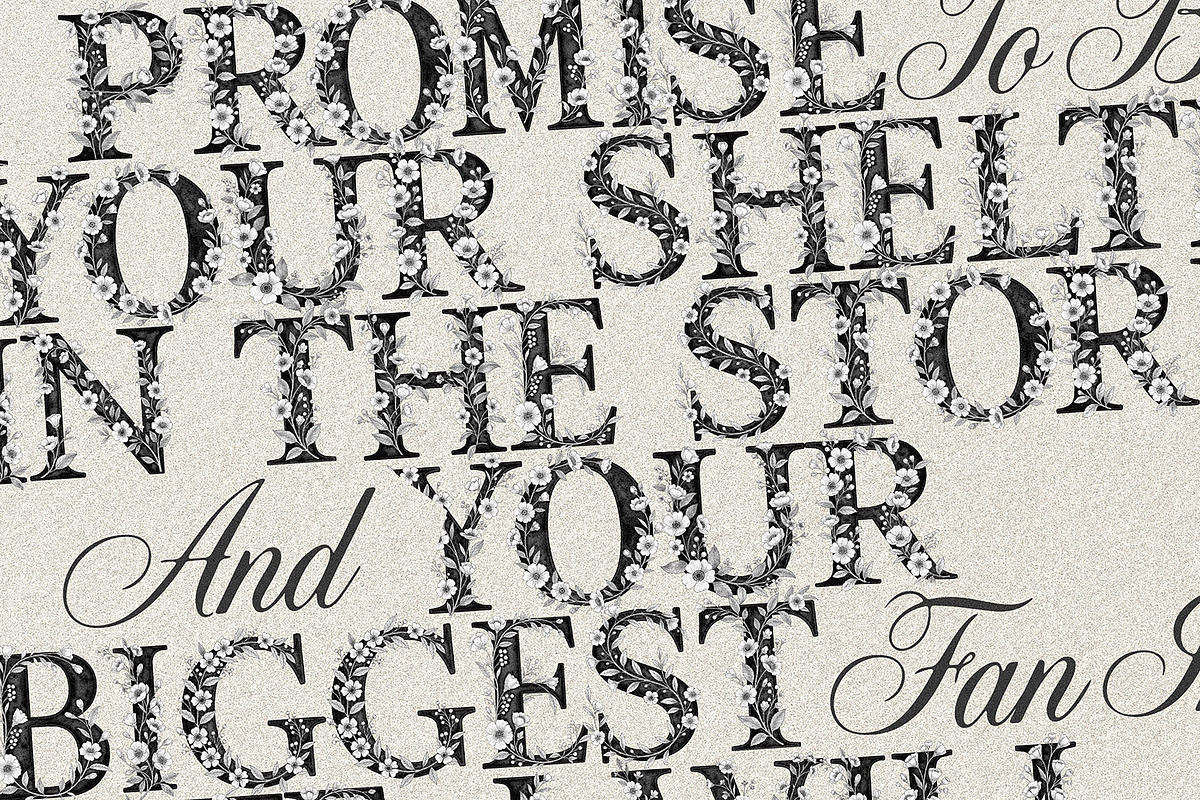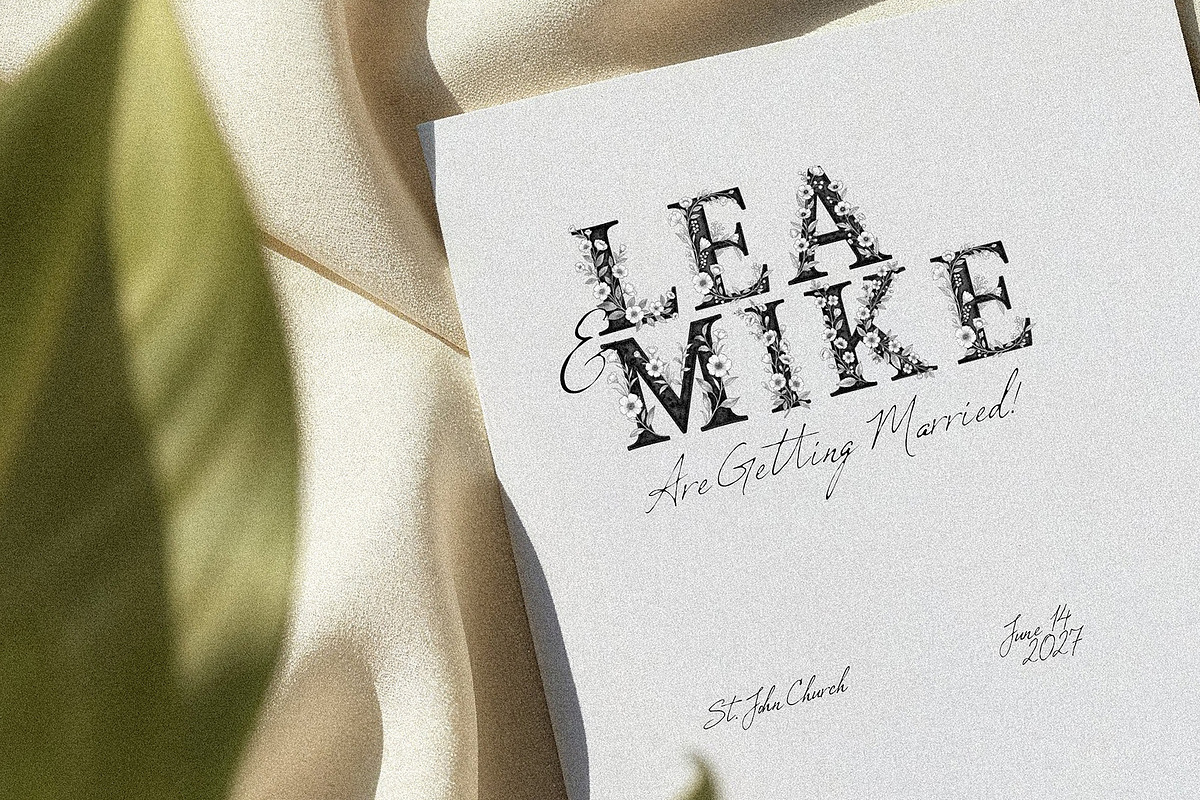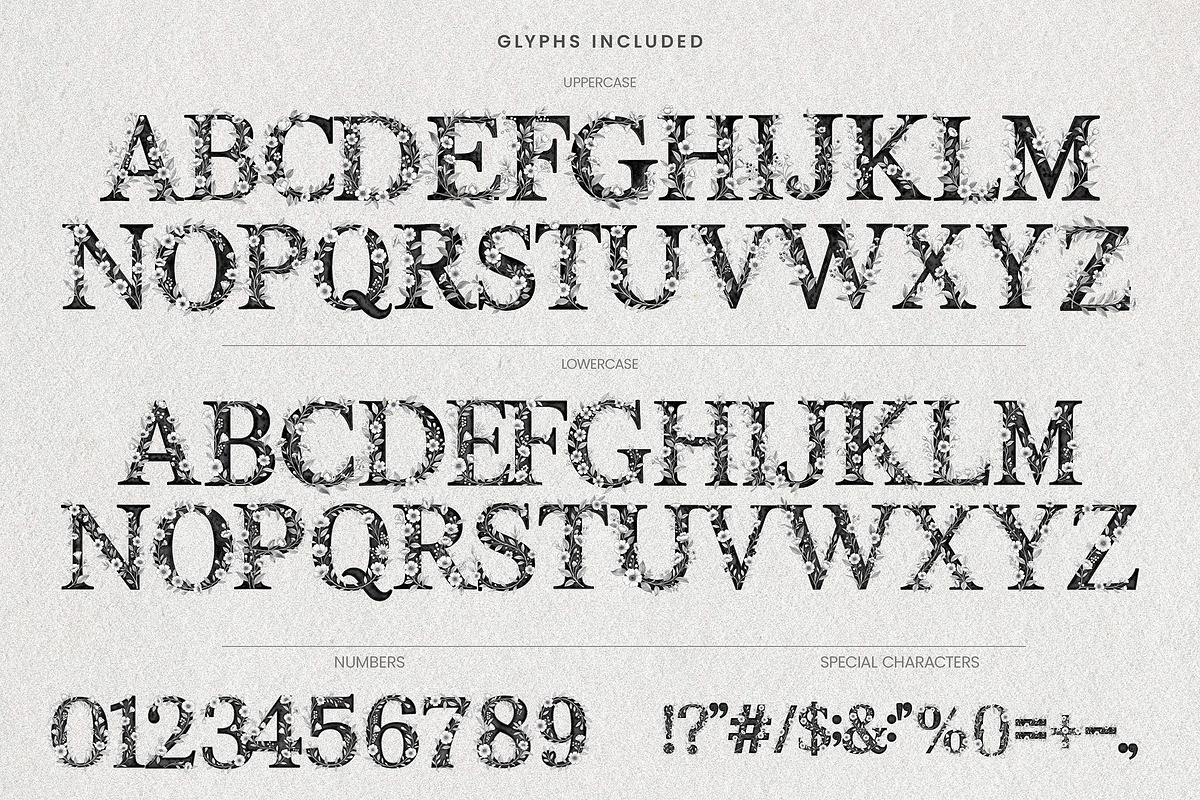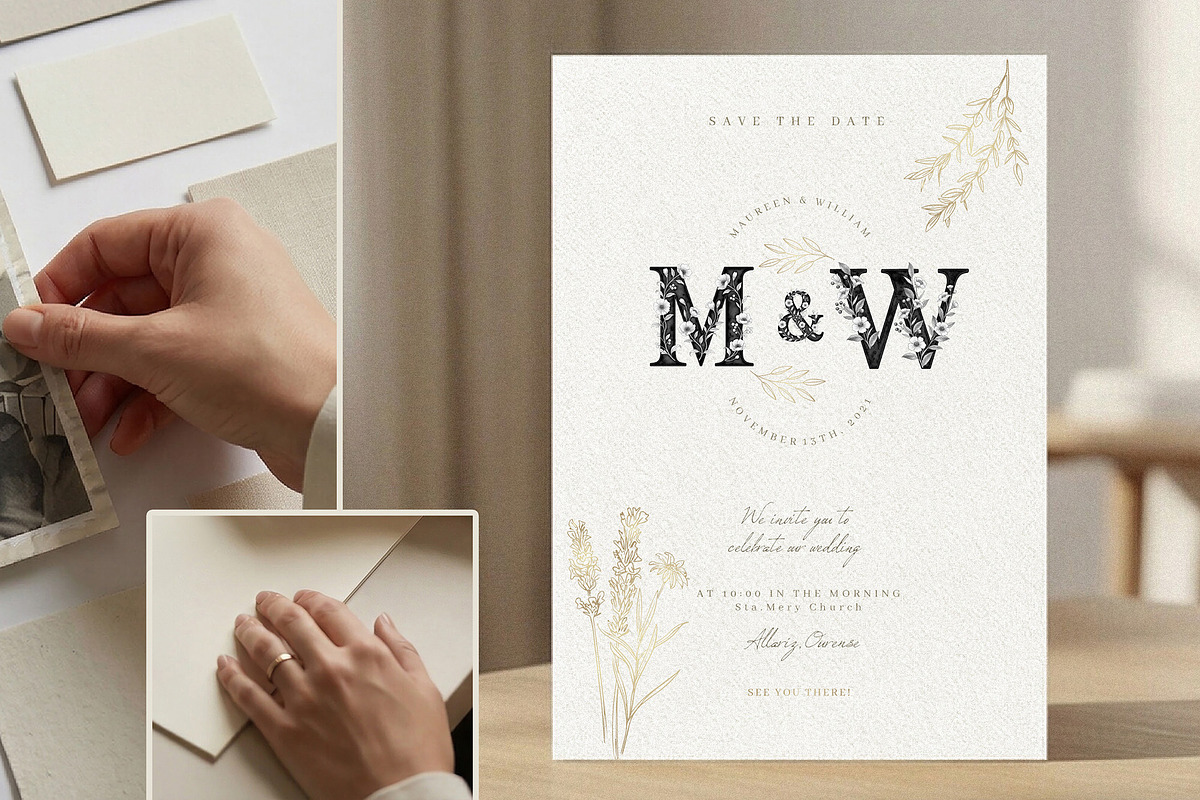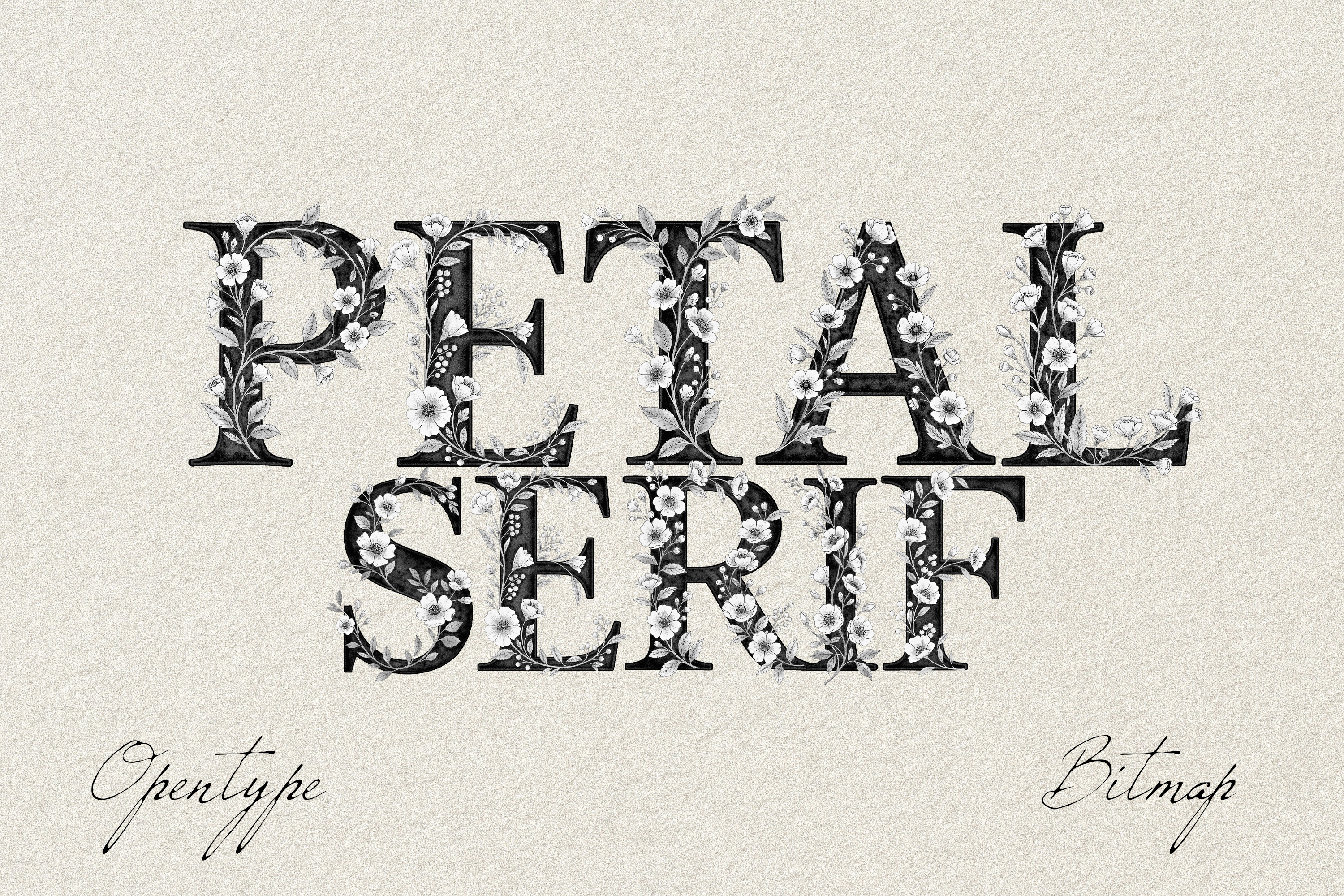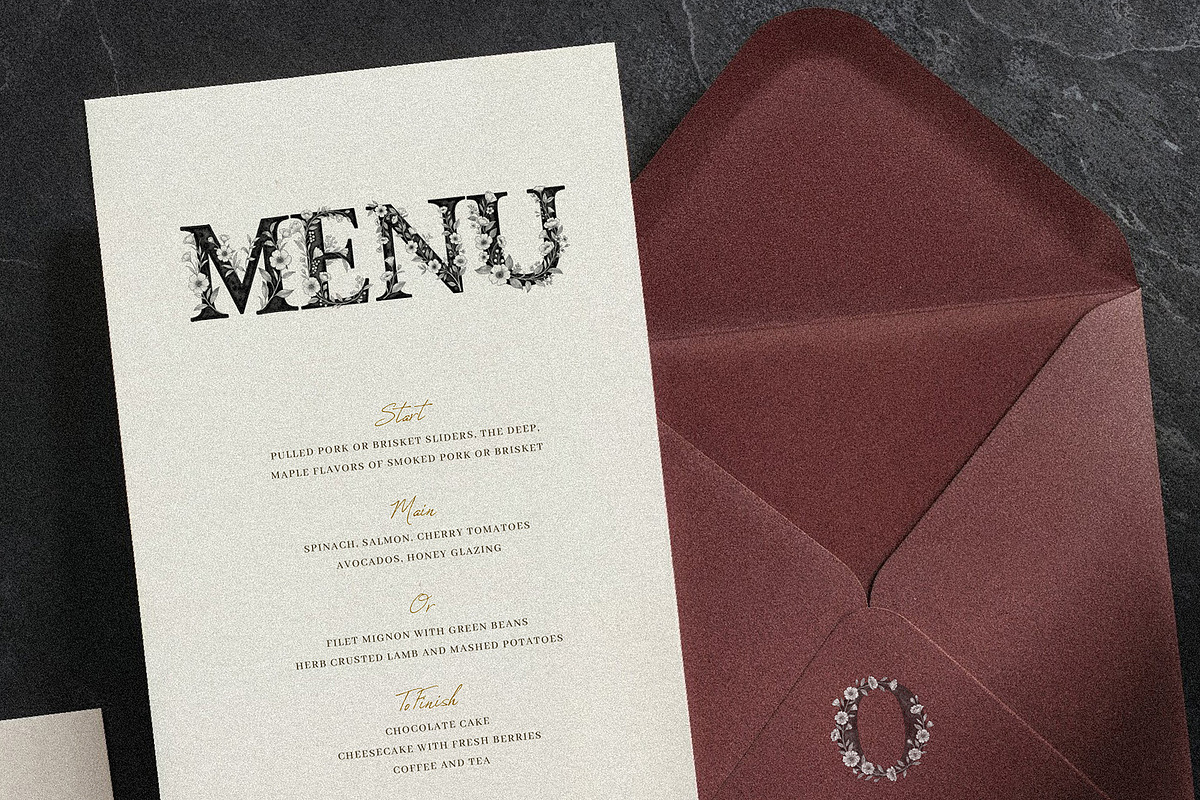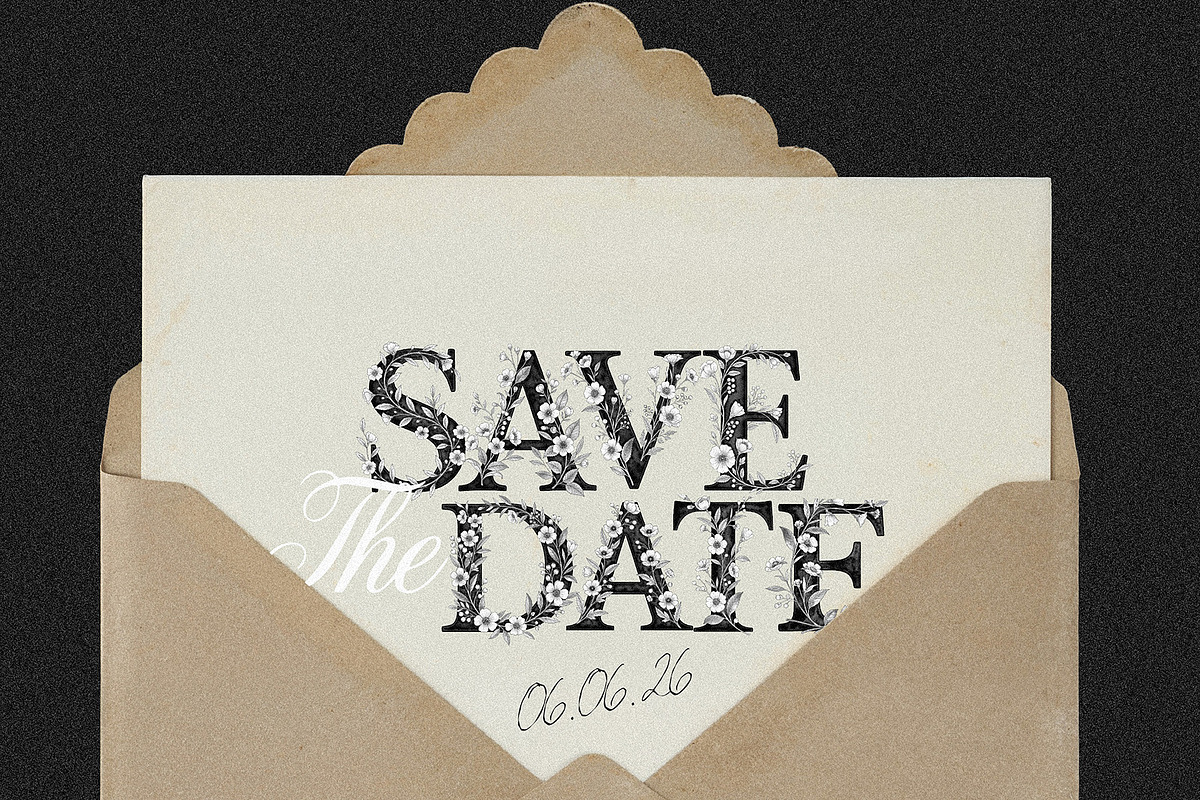
Petal Serif – Floral Wedding Font
Bring the romance to your designs with Petal Serif, an elegant botanical typeface.
Each letter is crafted with a classic, serif watercolor base and then entwined with delicate, hand-drawn wildflowers, vines, and leaves. The contrast between the bold, dark letterforms and the intricate, light floral overlays creates a visual depth that looks like a vintage engraving brought to life.
Perfect for designers looking to add a touch of organic elegance without drawing every single leaf by hand. Whether you are designing a dream wedding suite or a boutique brand identity, Petal Serif does the heavy lifting for you.
- Wedding Monograms: Create a stunning "A & B" monogram for the couple to use on everything from napkins to the dance floor gobo light.
- Save the Dates: Let the font be the hero image. A simple "SAVE THE DATE" in this font requires no other graphics to look complete.
- Book Covers: Perfect for romance novels, botanical guides, or fantasy fiction titles that need an enchanted forest vibe.
- Boutique Branding: Ideal for florists, organic skincare lines, or artisanal candle companies looking for a logo that feels earthy yet luxurious.
- Table Numbers: Print large, single letters or numbers (e.g., "Table One") on textured cardstock for an elegant centerpiece.
- Event Signage: Beautiful for "Welcome," "Cards & Gifts," or "Seating Chart" headers at rustic or garden-themed events.